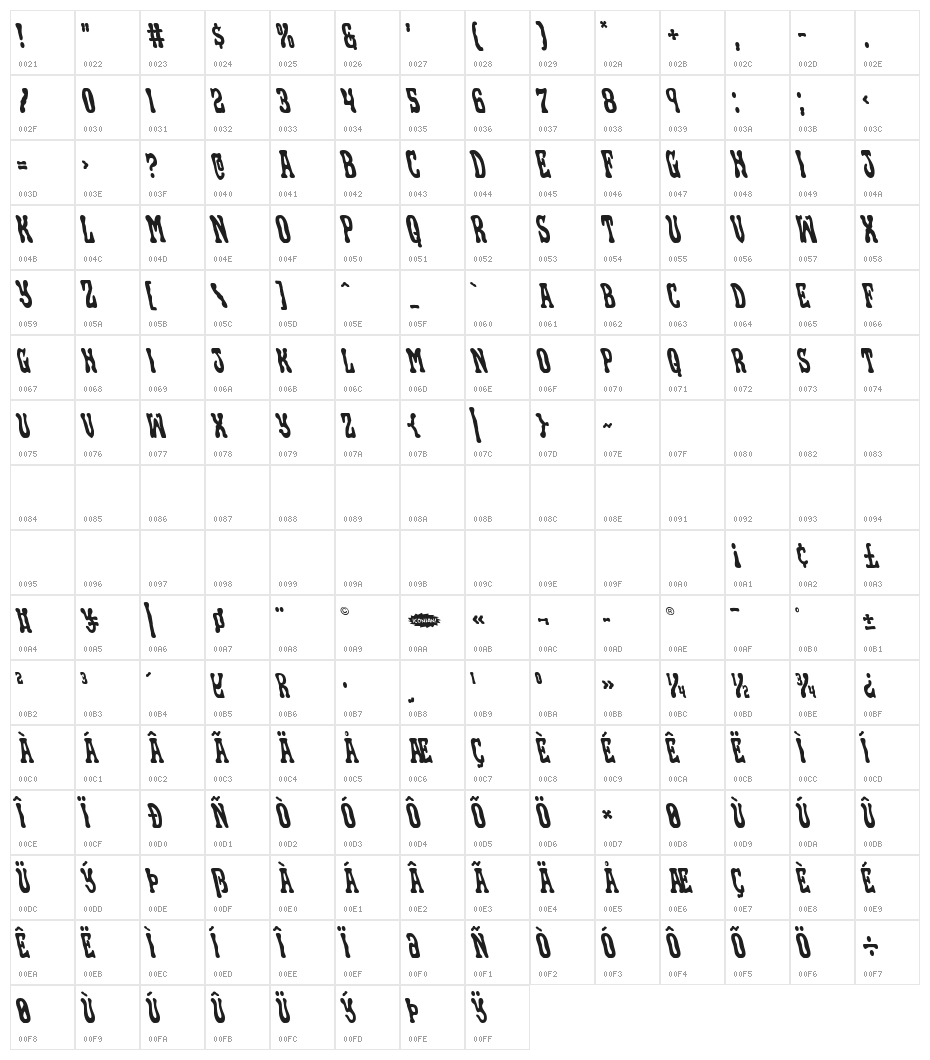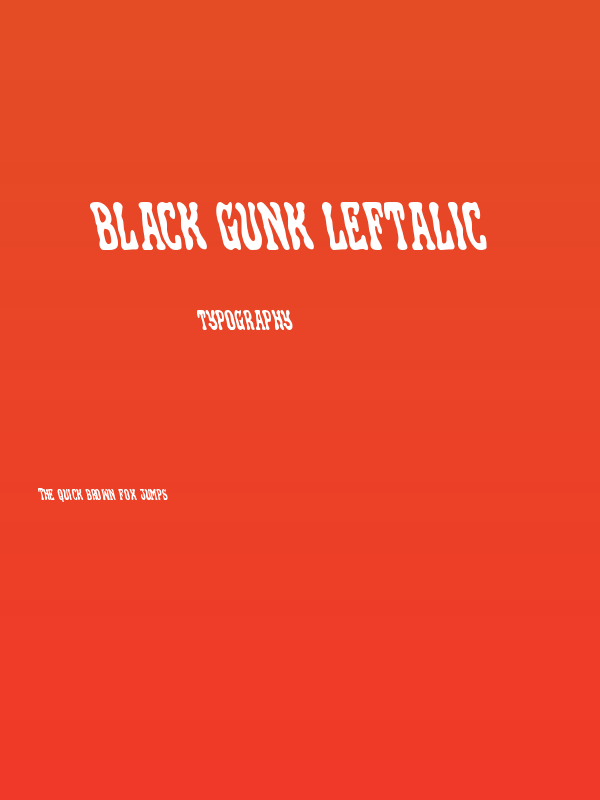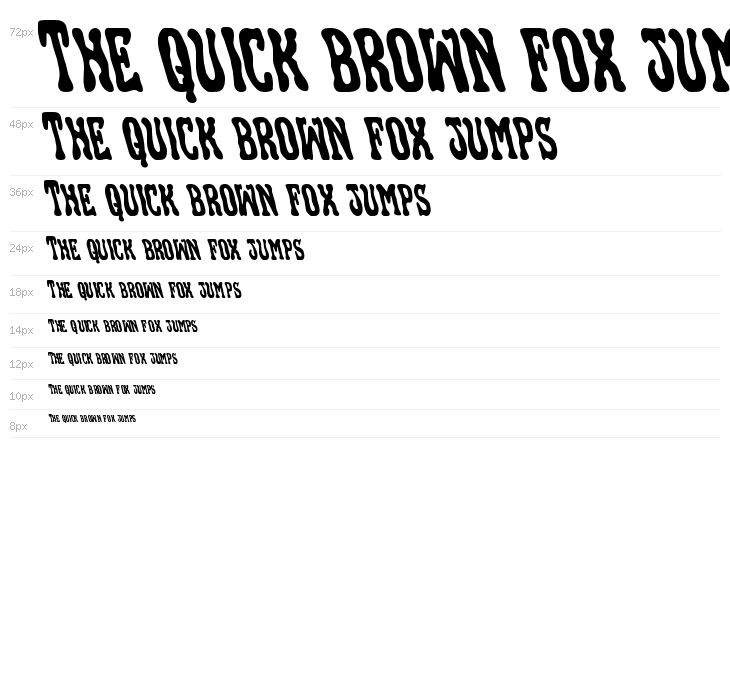
Black Gunk Leftalic Font
Black Gunk Leftalic Description
This font features a bold and playful design with a distinct leftward slant, giving it a dynamic and energetic appearance. The characters are thick and rounded, with a slightly irregular shape that adds a whimsical and informal touch. The uppercase and lowercase letters maintain a consistent style, while the numbers and special characters are equally bold and expressive. This font's unique style makes it stand out, making it suitable for creative and eye-catching designs.
| Use Case | Headlines, Posters, Branding |
| Proposed Projects | Ideal for posters, children's books, comic strips, and playful branding projects. |